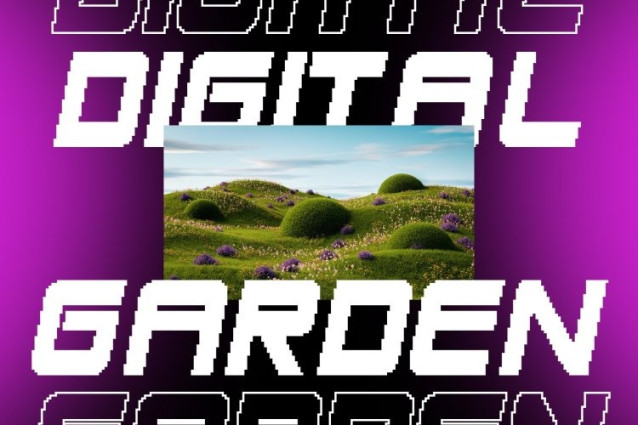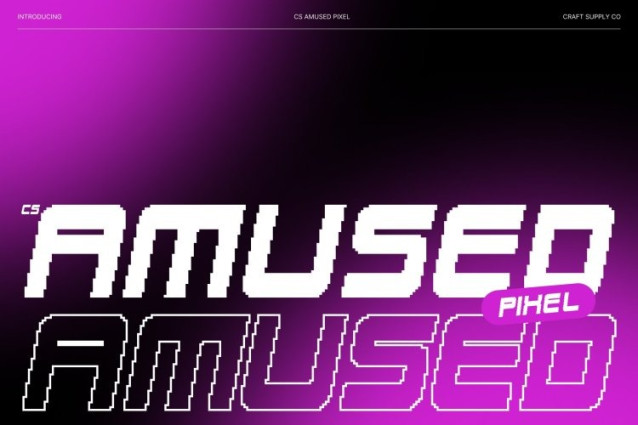
CS Amused Pixel Font
CS Amused Pixel Font This is a bold techno-inspired sans serif display font that radiates modern energy while embracing pixel-style details. These pixel elements recall old digital characters from early computer screens and arcade systems, giving the font a distinctive retro-digital personality. Combined with a clean, futuristic structure, the letterforms feel both nostalgic and forward-thinking.
Bold Construction for Strong Visual Presence
The bold weight and solid construction give this font a powerful visual impact. Thick strokes, sharp edges, and pixel accents ensure excellent visibility and instant readability. This combination allows the font to dominate layouts confidently, making it ideal for large headlines, logos, and branding that require strength and clarity without visual clutter.
Retro Digital Feel with Modern Techno Energy
The pixel style introduces a vintage digital atmosphere, evoking classic tech aesthetics, while the streamlined geometry keeps the font modern and relevant. This fusion creates a dynamic balance between retro charm and contemporary design, resulting in typography that feels energetic, innovative, and visually engaging across digital and print media.
Perfect for Branding, Logos, and High-Impact Visuals
This font is perfect for branding, logo design, posters, gaming visuals, music events, and tech-focused campaigns. Its blend of old-school digital pixel style and modern techno energy makes it an excellent choice for designs that aim to feel bold, retro-modern, and confidently futuristic.